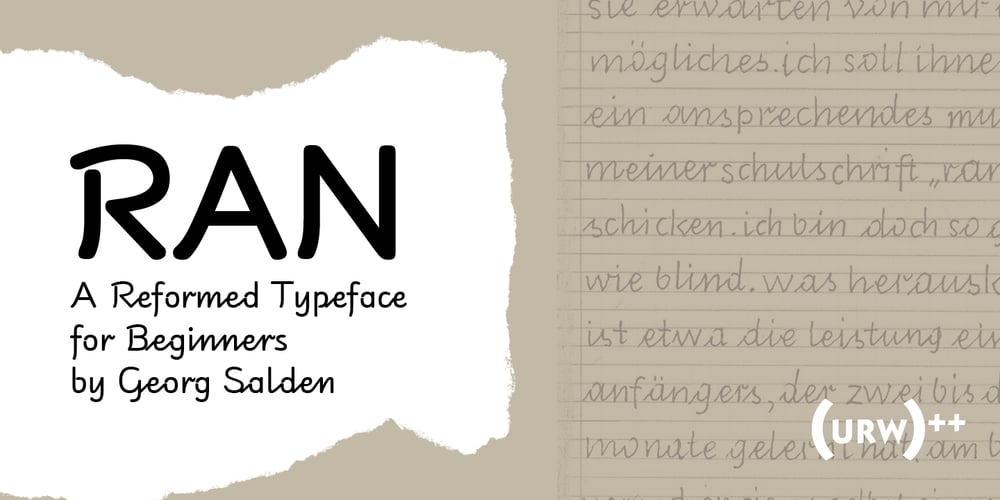
RAN Font Family was designed by Volker Schnebel and published by URW Type Foundry. RAN contains 5 styles and family package options. RAN Reformed Typeface for Beginners by Georg Salden – a headstrong and courageous approach to an improved handling of handwriting. Diverse and sometimes irreconcilable theories exist about how beginners are supposed to learn writing and reading. This has led to fierce discussions among experts already. We don’t want to pour more oil on the fire, but hope to create a new awareness for this topic, which is important to everyone of us. For beginners the combination of single characters (sounds) to whole words is essential during the acquirement of reading and writing. In this process they develop the skill to recall entire terms from memory. Therefore, after current practice, every word shall be written in a single stroke without lifting the pen in between. Georg Salden contradicts this postulate and warns, that coercively holding the pen down within a word can easily lead to exaggerated loop formations and a general meandering of the written text. The intellectual process in connecting single sounds to words while writing would happen anyway and the prohibition to lift the pen would often lead to tensions. To still support the necessary connections in general and to simplify the connecting, he teaches to write all round letters like a, e, g, o with inclusion of the connecting stroke, so that the spacing and combining with the next character arise by themselves. By settling the stroke at certain points and with a clear and logical writing method, a conscious and careful contact with the various strokes arises. All this automatically leads, together with a certain deceleration, to an increase of beauty and readability in the handwriting. The repeatedly discussed topic »connected or unconnected« appears to be solved in the most comfortable way as, depending on the particular character combination, both solutions are possible.